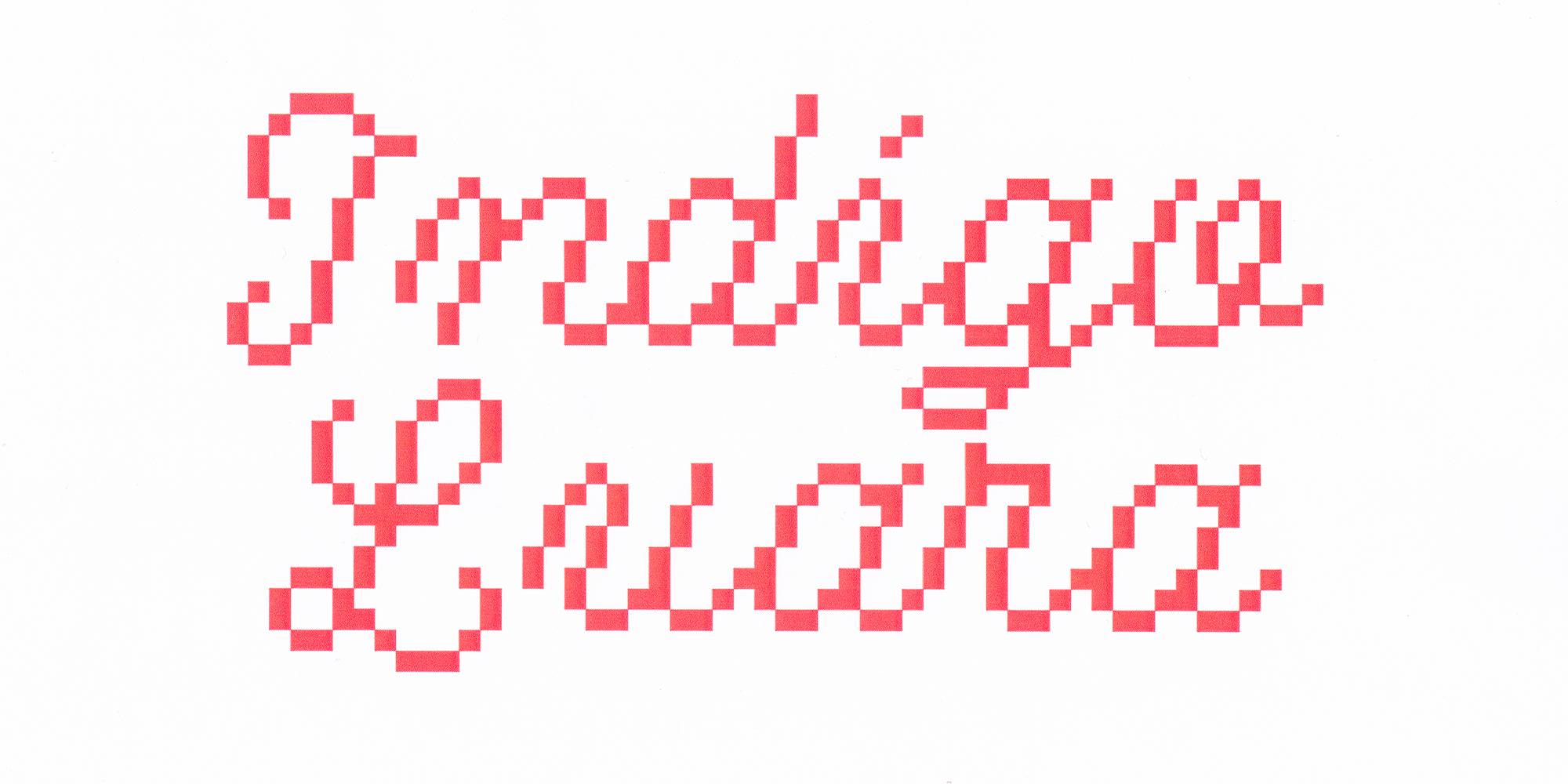
The INDG Luara Font is ideal for branding, editorial layouts, posters, and digital interfaces with a retro-modern aesthetic.
This font is exciting because its bitmap-inspired design blends pixelated simplicity with expressive elegance, offering a unique, nostalgic yet forward-looking style.
The INDG Luara Font family includes a single style, designed to deliver a cohesive, versatile look for diverse creative projects.
Discover the distinctive charm of the INDG Luara Font Free Download, a typeface crafted for designers seeking a balance of retro bitmap aesthetics and modern versatility. Inspired by a vision of modesty and truth, this font is perfect for creating impactful branding, eye-catching posters, or engaging digital content. Its pixelated yet legible design supports nearly 150 languages, making it a global choice for expressive typography.
The INDG Luara Font shines in both print and digital applications. Its clean, pixel-based structure ensures readability in body text, while its unique style makes it ideal for attention-grabbing titles or logos. Whether you’re designing for a tech startup’s website or a vintage-style magazine, this font adds a poetic, pixelated flair. It pairs seamlessly with minimalist or bold design elements, offering creative flexibility.